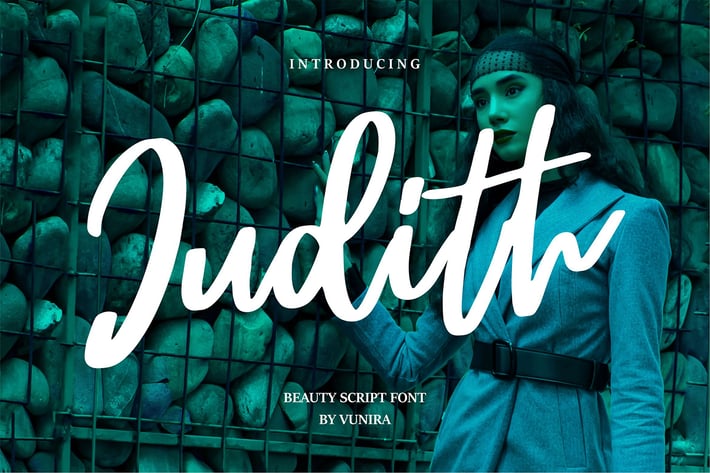
Judith | Beauty Script Font
Judith | Beauty Script Font with a calligraphy style, So beautiful on invitation like greeting cards, branding materials, business cards, quotes, posters, and more!